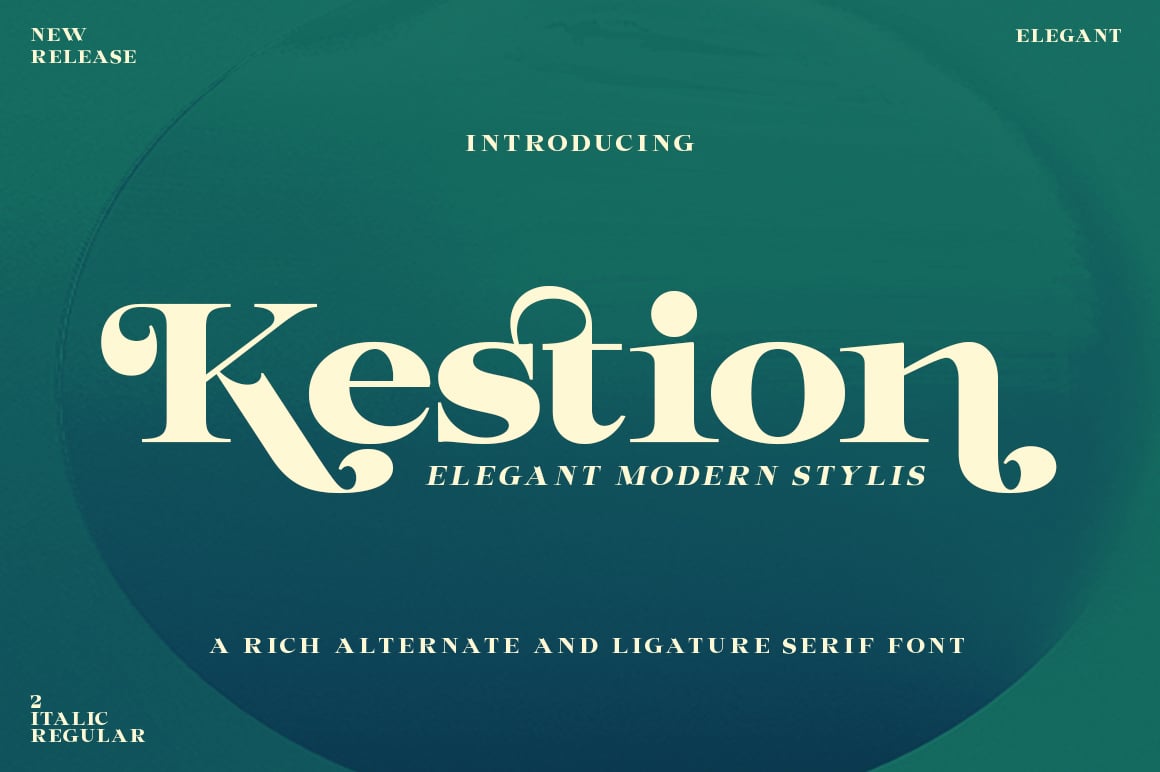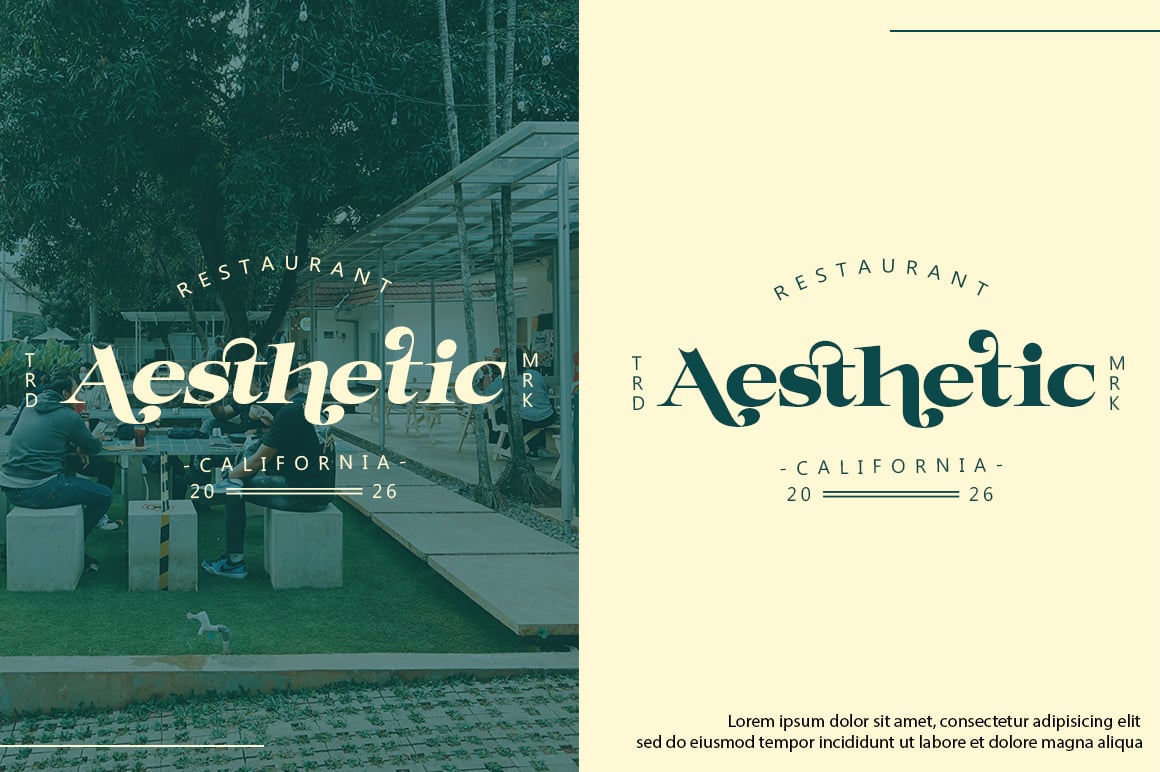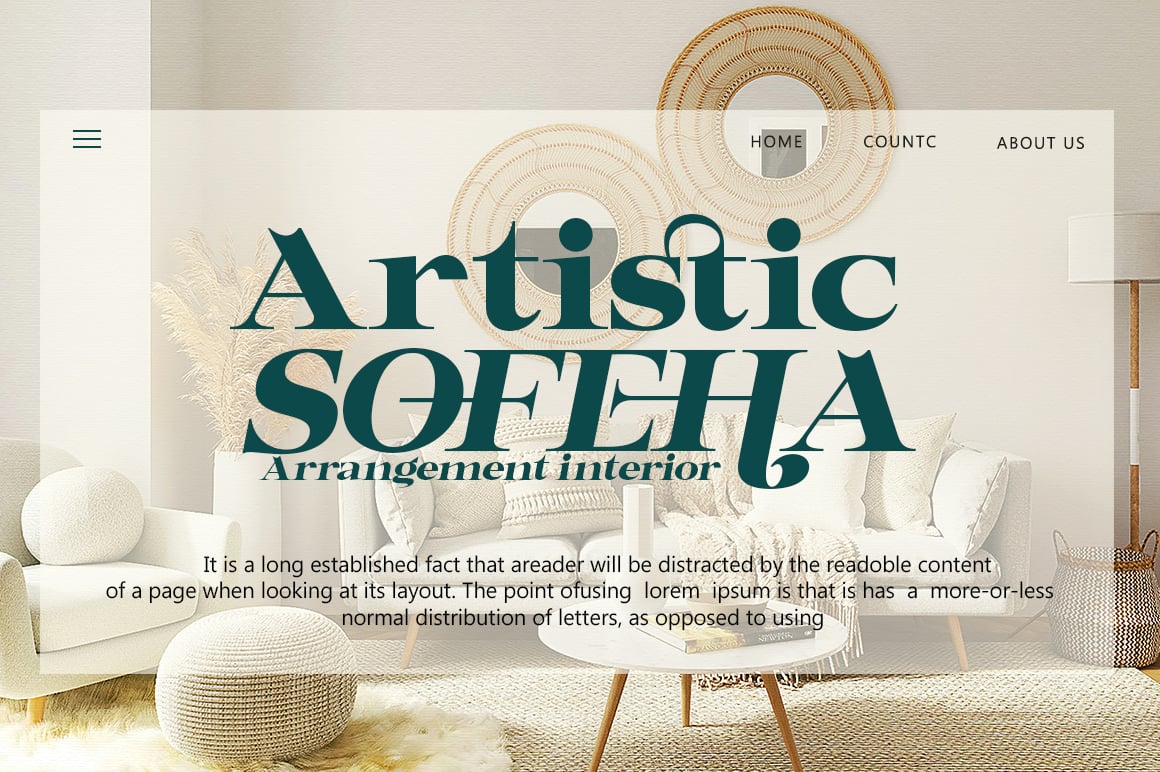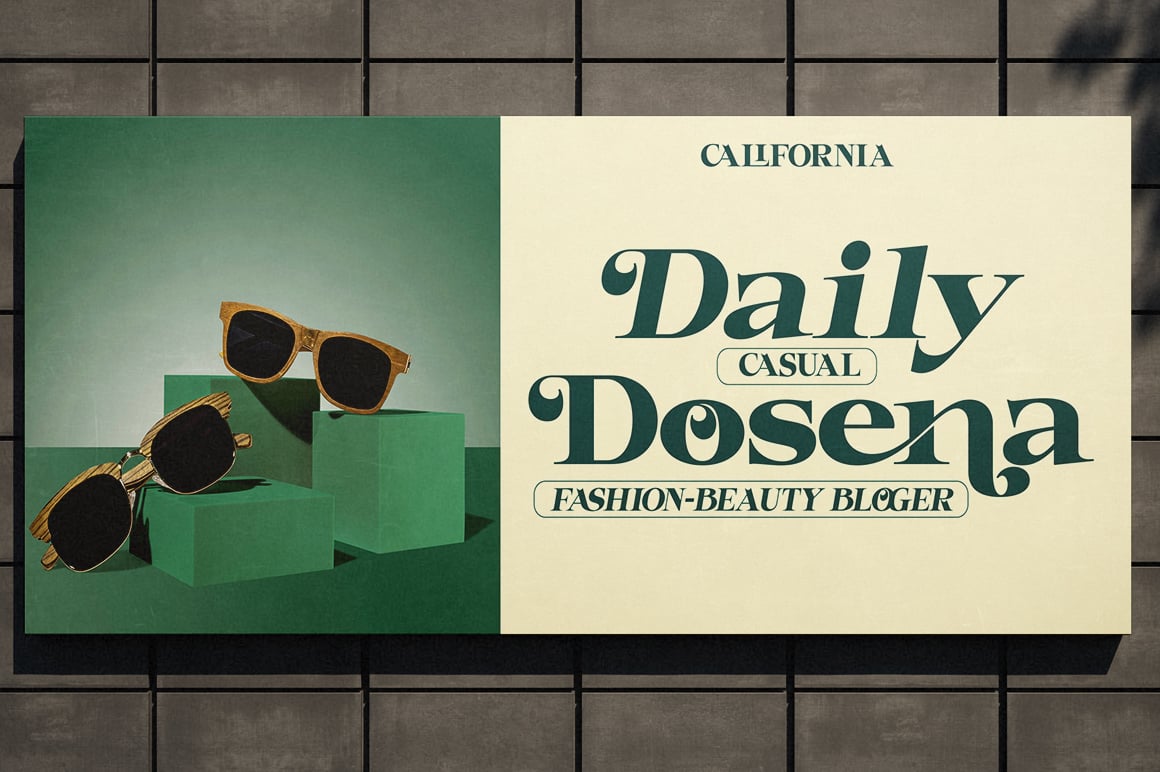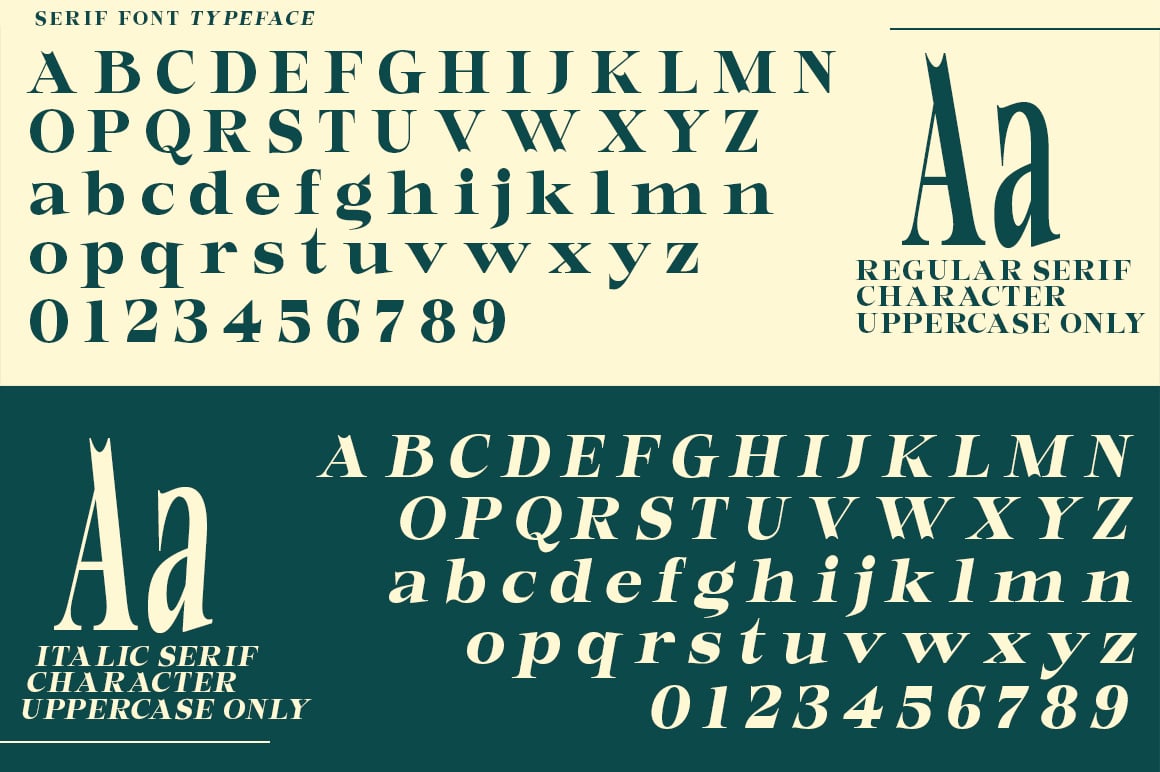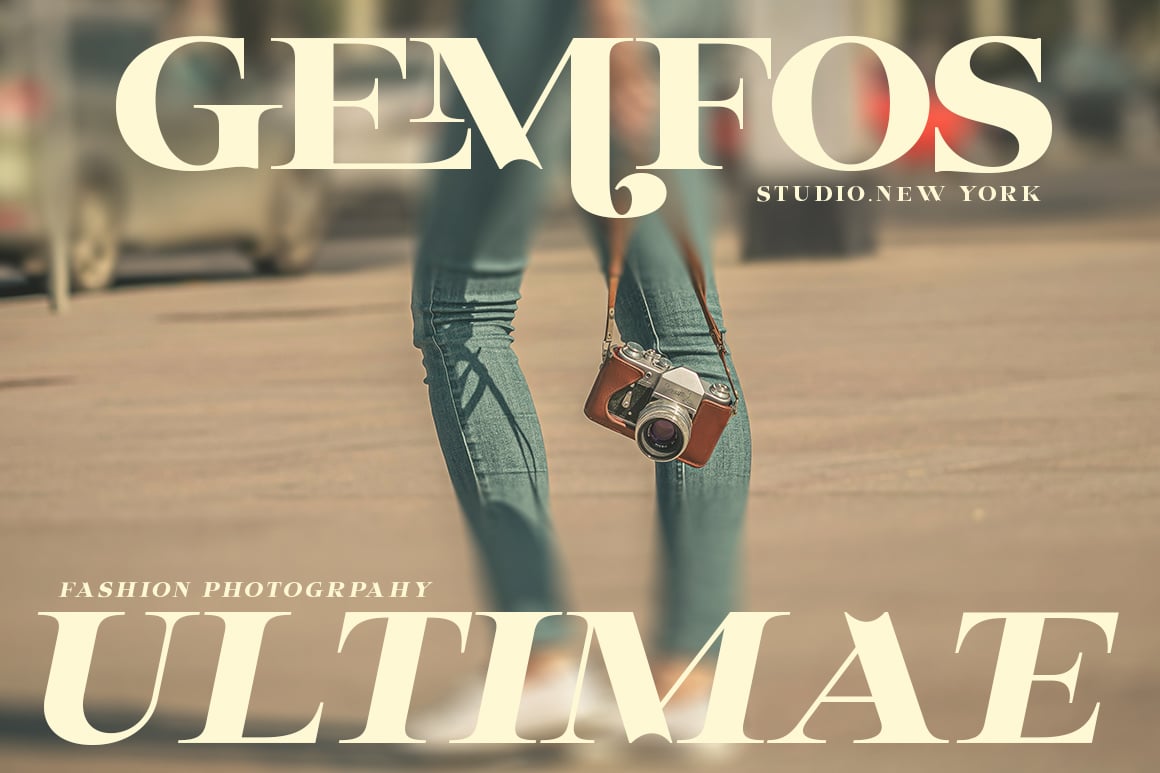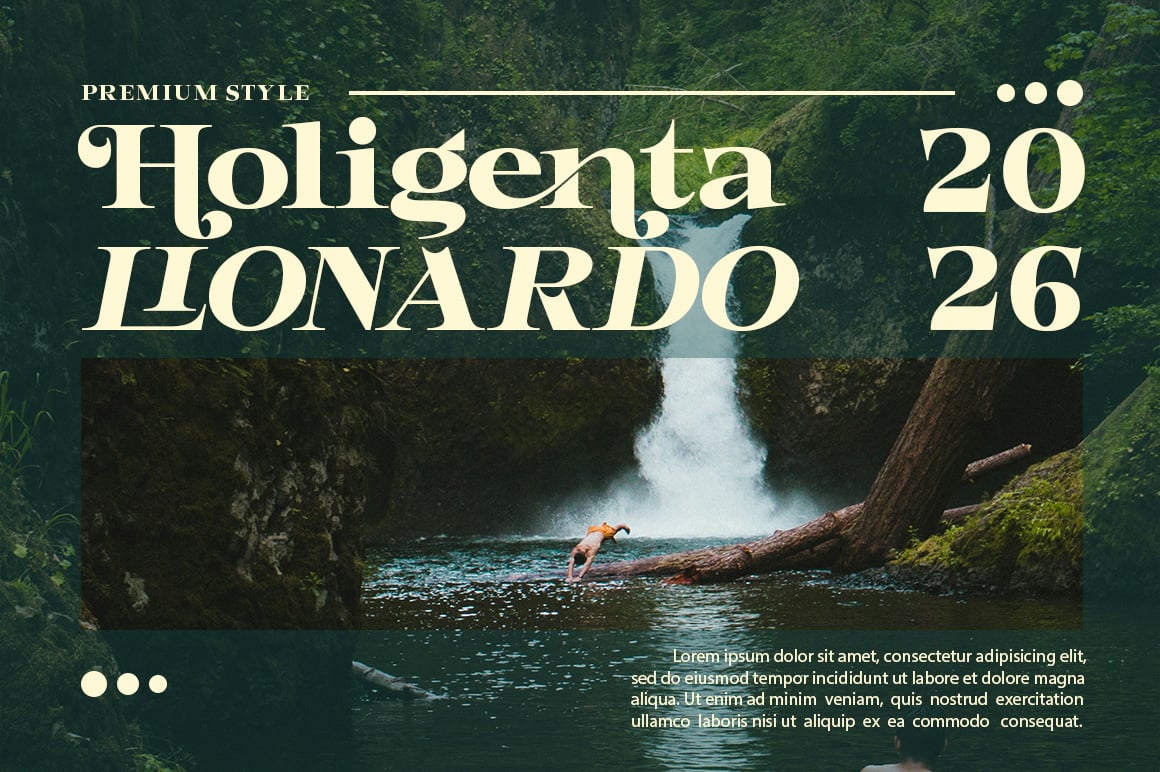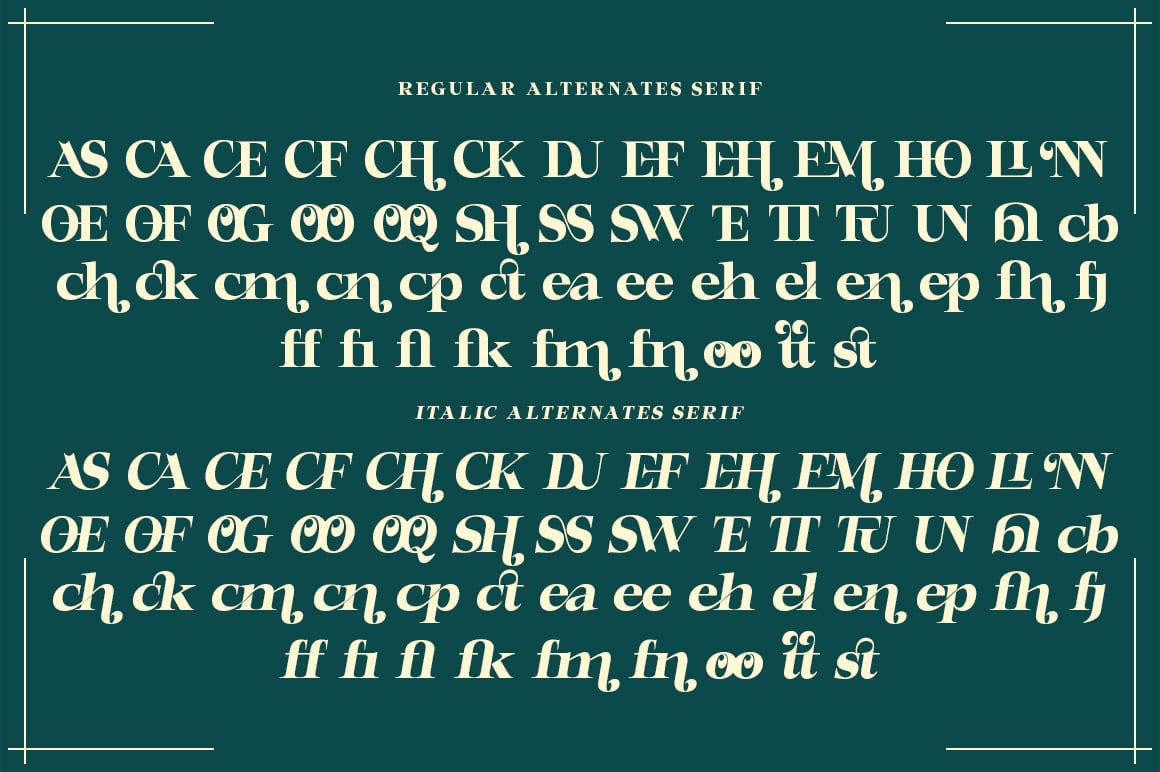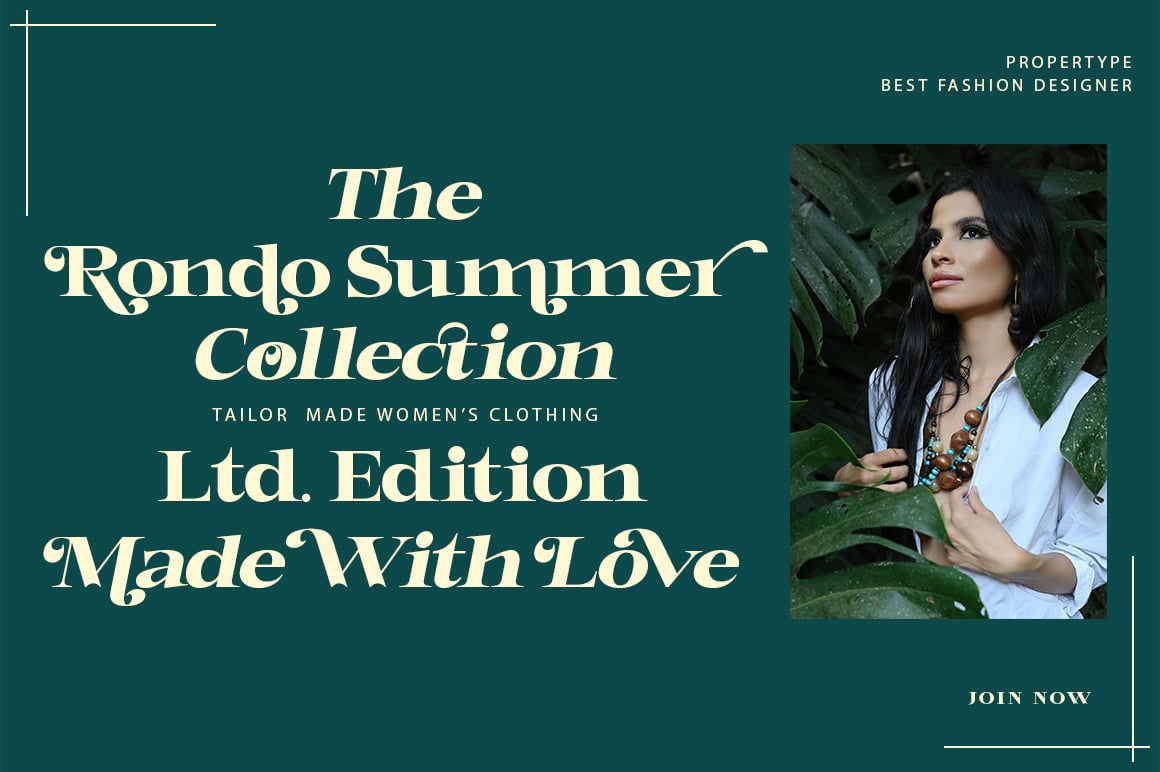
Kestion Font
Kestion is a modern vintage serif font packed in a modern and classy style, complete with access to your OpenType features to access a wide selection of alternate letters and ligatures, a choice of letters you like from uppercase and lowercase to get a luxurious and elegant look.